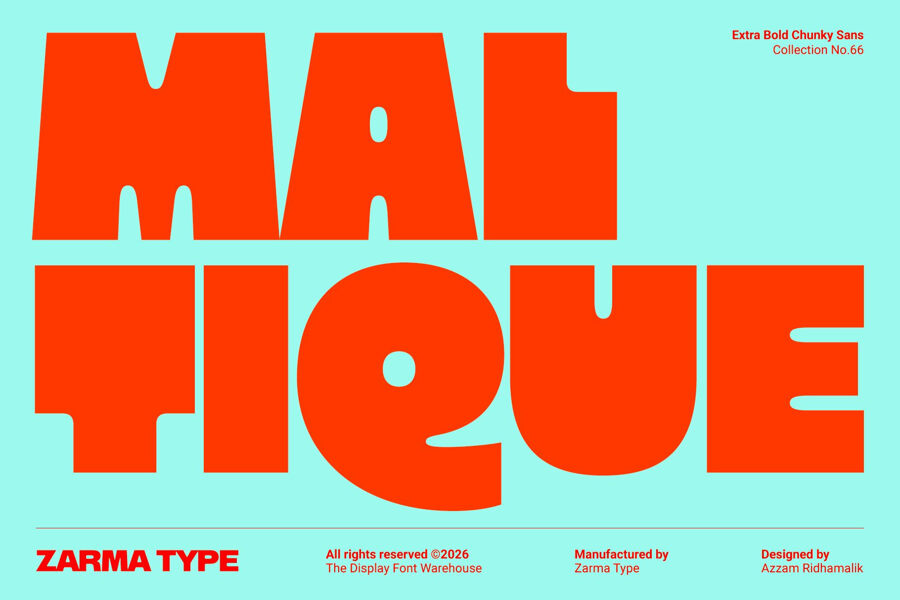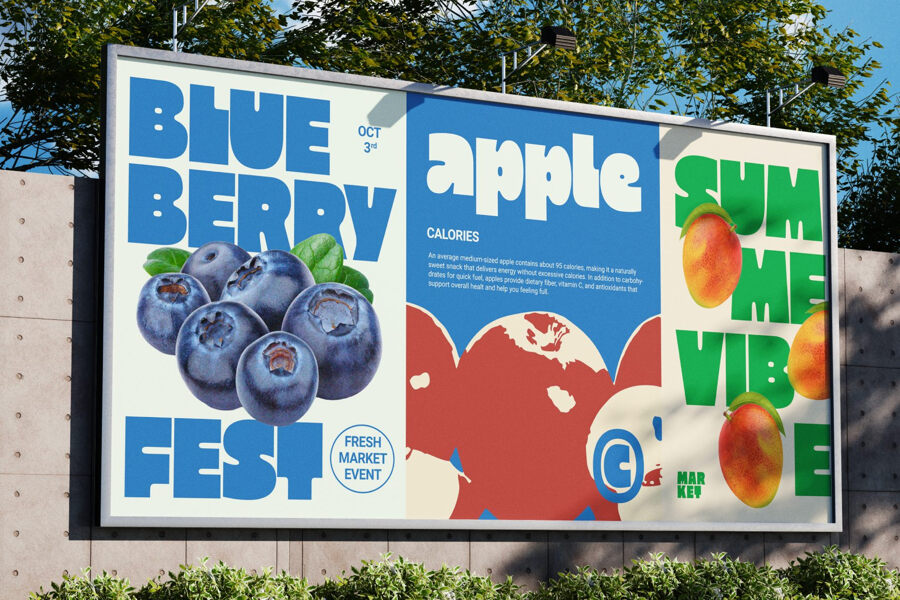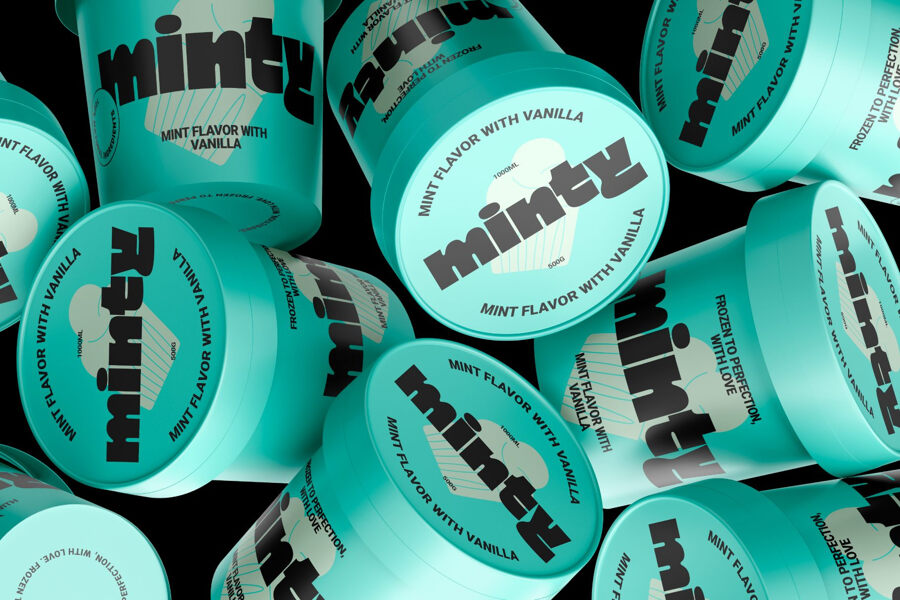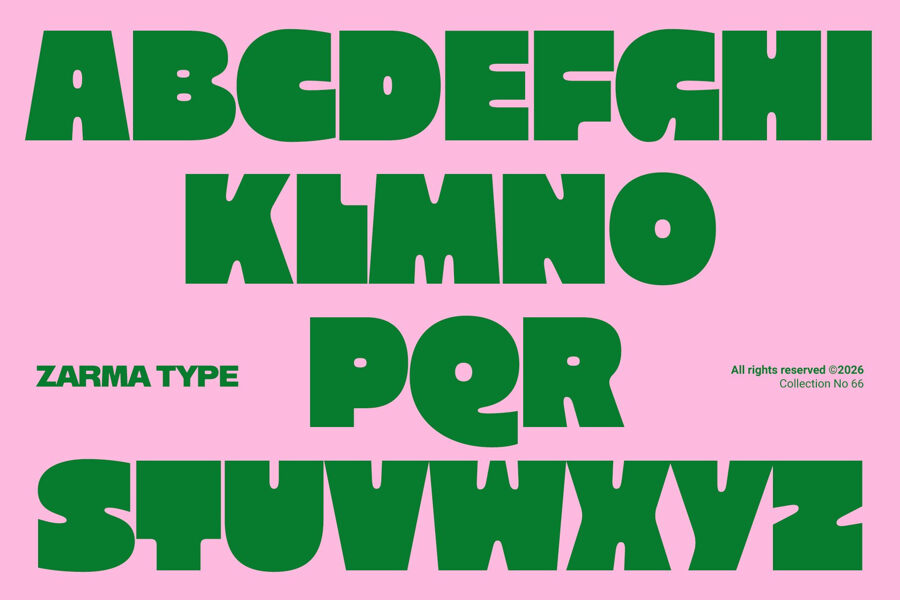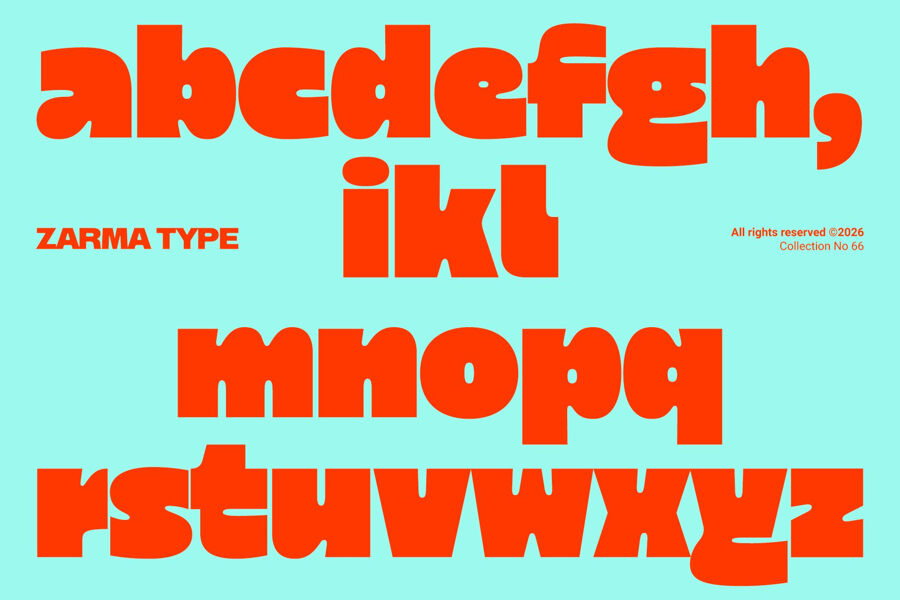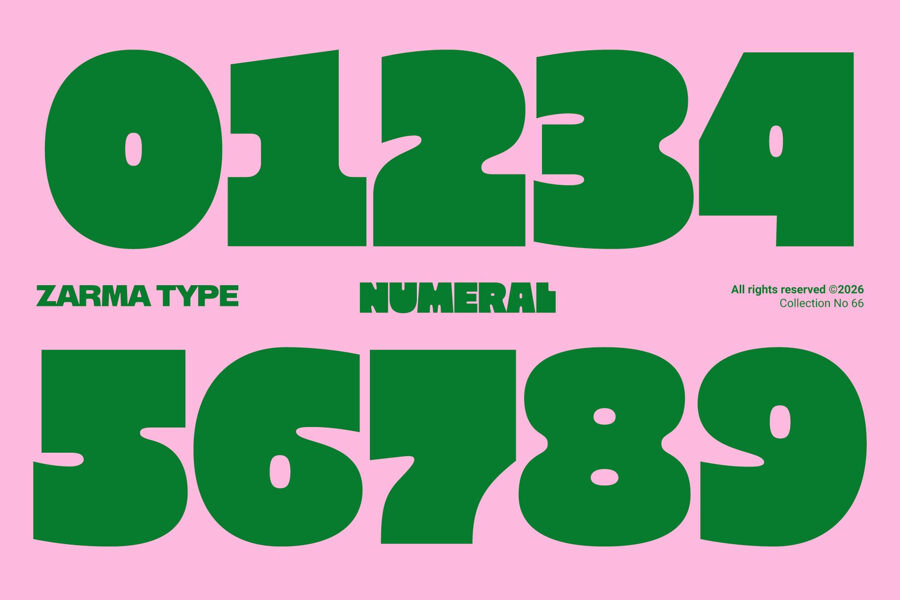
Maltique Font
Maltique features oversized proportions, heavy strokes, sharp outer corners, and uniquely melted inner curves. It creates a bold visual personality that grabs attention while staying clean and contemporary. Every letter creates a strong presence across branding, packaging, editorial layouts, posters, social media graphics, and oversized headlines.
Unlike many chunky display fonts inspired by vintage styles, Maltique combines retro confidence with modern simplicity. It feels playful without becoming childish. It stays expressive without sacrificing legibility, making every design more memorable.